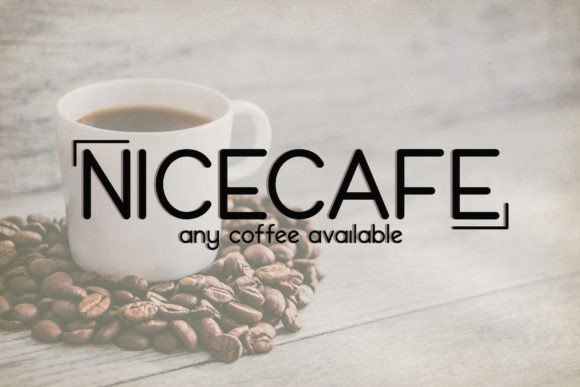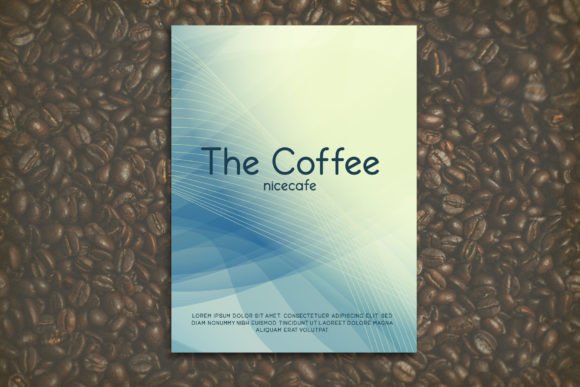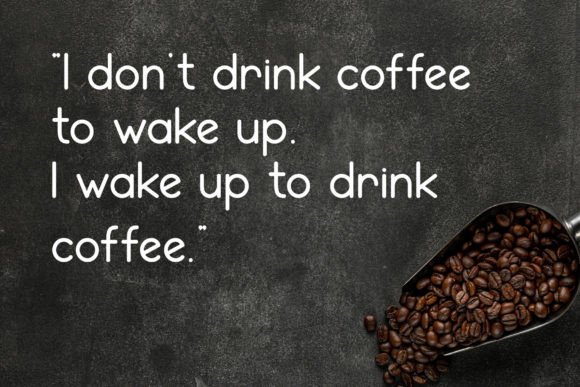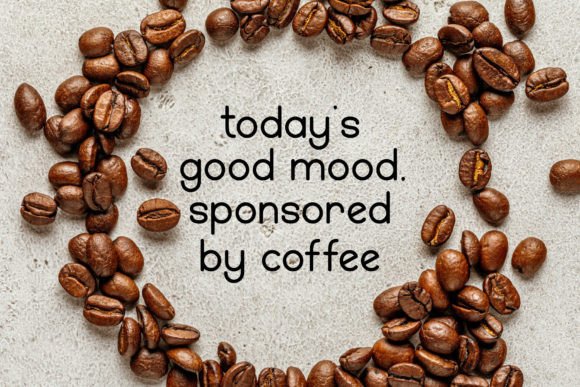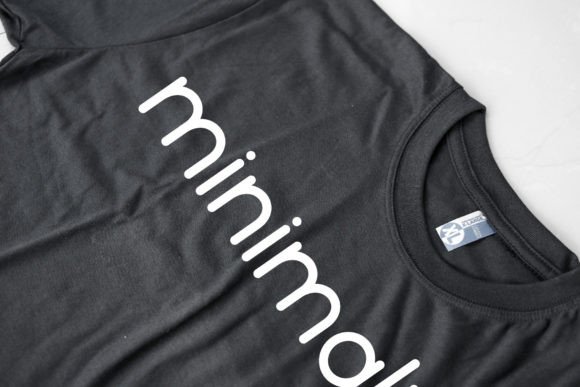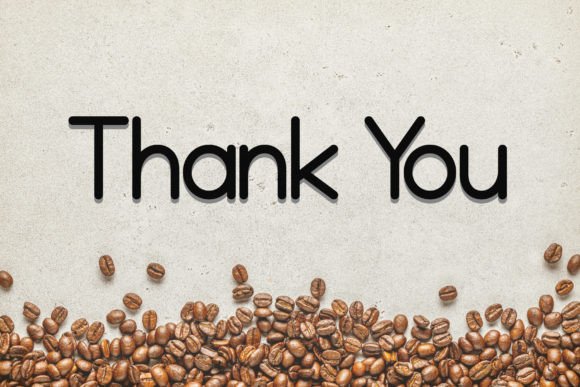
Introducing Black Coffee Font: The Ultimate Choice for a Clean Retro Look
In the world of design, fonts play a crucial role in conveying the message and aesthetic of a brand. For designers and crafters looking for a simple yet elegant handwritten font, Black Coffee is an excellent choice. This font is designed to provide a clean retro look, making it perfect for a variety of design applications, from tattoos and logos to web design and branding.
What Makes Black Coffee Font Stand Out?
Black Coffee is a handwritten font that boasts vintage balanced proportions, giving it a unique and distinctive look. Its simplicity and elegance make it an ideal choice for designers who want to create a minimalist aesthetic. The font’s clean lines and retro feel evoke a sense of nostalgia, making it perfect for designs that require a touch of classic charm.
Key Features of Black Coffee Font
- Simple Handwritten Design: Black Coffee font features a simple handwritten design that exudes elegance and sophistication.
- Clean Retro Look: The font’s vintage balanced proportions give it a clean retro look that’s perfect for a variety of design applications.
- Minimalist Aesthetic: Black Coffee font is ideal for designers who want to create a minimalist aesthetic in their designs.
- Versatile: This font can be used in a variety of design applications, including tattoos, logos, web design, and branding.
Black Coffee font is a versatile font that’s perfect for designers and crafters who want to add a touch of elegance and sophistication to their designs. Whether you’re working on a website, branding materials, or marketing campaigns, this font is sure to become a go-to in your design toolkit. Its simplicity and elegance make it easy to pair with other fonts, and its clean lines ensure that it will look great in any design application.
Use Cases for Black Coffee Font
Black Coffee font can be used in a variety of design applications, including:
- Tattoos: The font’s simple and elegant design makes it perfect for tattoos that require a clean and minimalist look.
- Logos: Black Coffee font is ideal for logos that require a touch of elegance and sophistication.
- Web Design: The font’s clean lines and retro feel make it perfect for web design applications, including website headers, titles, and captions.
- Branding: Black Coffee font can be used in branding materials, including business cards, brochures, and packaging.
- Marketing Campaigns: The font’s simplicity and elegance make it perfect for marketing campaigns that require a touch of sophistication.
Why Choose Black Coffee Font?
There are many fonts available that offer a similar aesthetic to Black Coffee font. However, this font stands out due to its unique combination of simplicity, elegance, and versatility. Here are a few reasons why you should choose Black Coffee font for your next design project:
- Unique Design: Black Coffee font features a unique design that’s both simple and elegant.
- Versatile: The font can be used in a variety of design applications, making it a great addition to any design toolkit.
- Easy to Read: The font’s clean lines and simple design make it easy to read, even at small sizes.
- Pairs Well with Other Fonts: Black Coffee font pairs well with other fonts, making it easy to use in a variety of design applications.
In conclusion, Black Coffee font is a simple yet elegant handwritten font that’s perfect for designers and crafters looking for a clean retro look. Its vintage balanced proportions, simplicity, and elegance make it an ideal choice for a variety of design applications, from tattoos and logos to web design and branding. With its versatility, ease of use, and unique design, Black Coffee font is sure to become a go-to in your design toolkit.